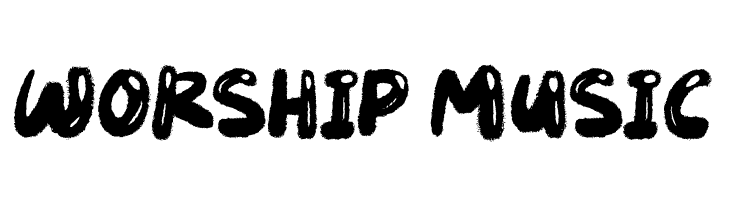
A playful, handwritten style with smooth, flowing characters and a casual flair.
A playful, bold font with rounded, cartoonish characters.
A playful, bold font with cartoonish, dynamic characters.
A bold, italicized font with a playful, comic-inspired style.
A bold, rounded font with a playful and friendly style.
A bold, brush-style font with a hand-drawn, energetic appearance.
A playful, bold, and italicized font with star-themed decorative elements.
A playful, hand-drawn font with bold, rounded characters and star motifs.
A bold, brush-style font with dynamic and expressive strokes.
A playful, bold handwritten font with rounded edges and a whimsical style.